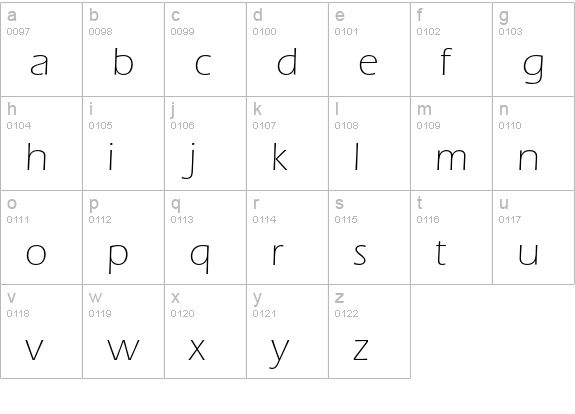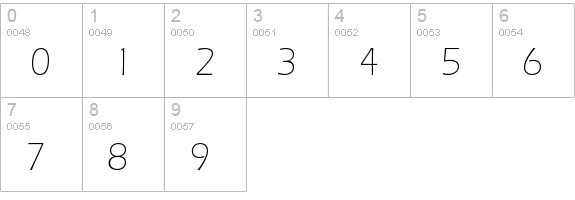
ErasEF-Light is a refined, elegant variant in the ErasEF typeface family \xE2\x80\x94 well suited to elegant body text, refined sub-headings, and luxury branding.
ErasEF-Light is a modern and elegant font that exudes sophistication and simplicity. With its clean lines and sleek design, this typeface is perfect for a wide range of design projects, from branding to editorial layouts. The light weight of the font adds a delicate touch to any text, making it versatile and easy to read. What's even better is that ErasEF-Light is available for free download at FontsMarket.com. That's right, you can enhance your designs with this beautiful font without spending a dime. Take advantage of this amazing opportunity to add a touch of class to your projects with ErasEF-Light. Download it today and elevate your designs to the next level.